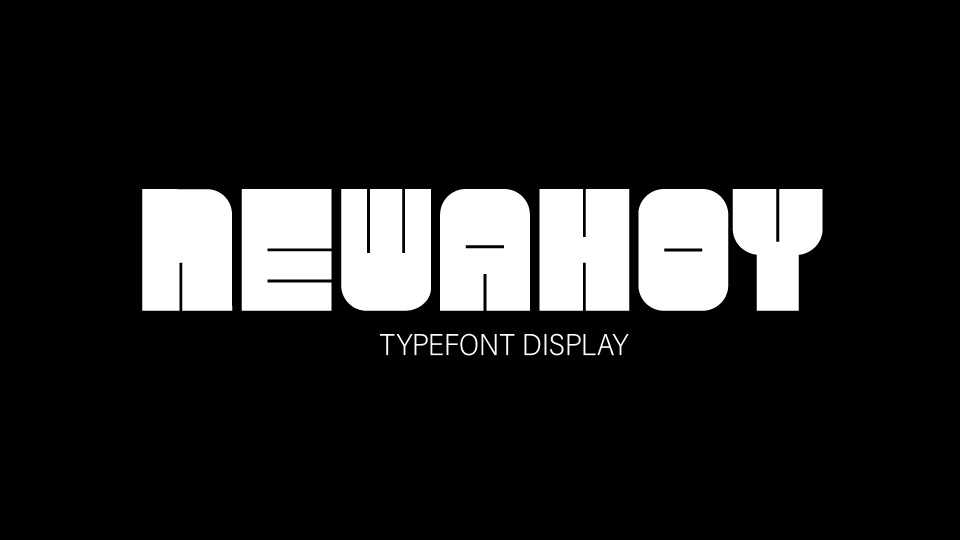
Download Newahoy font, a funky bold typeface done with modular letterforms based on rounded rectangle shapes. Strong and definitely unique Newahoy font looks great in posters an headlines.
Designer: Luana Petter